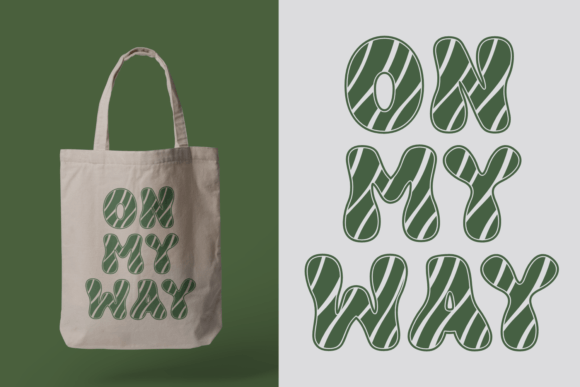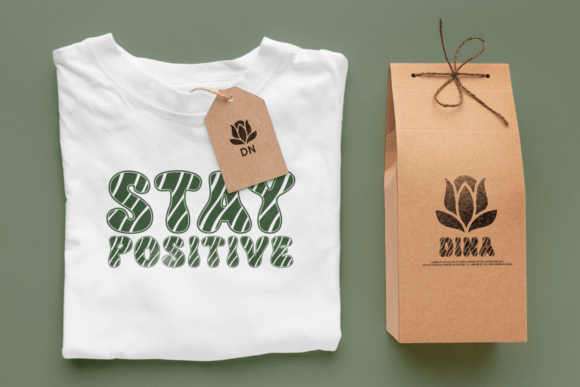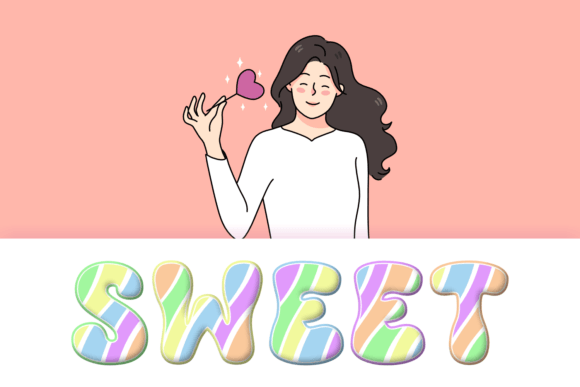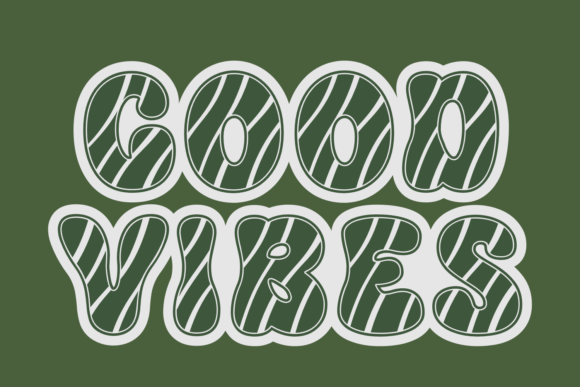
Introduction to Miracle Seeker Font
Miracle Seeker is a fun and playful display font.
Get inspired by this retro-style typeface that features thick and striped characters Play around with some colors to create the perfect aesthetic for your project.
Miracle Seeker Font offers exceptional quality and versatility, making it a valuable addition to your design toolkit. Whether you’re creating for personal projects or commercial use, Miracle Seeker Font delivers professional results.